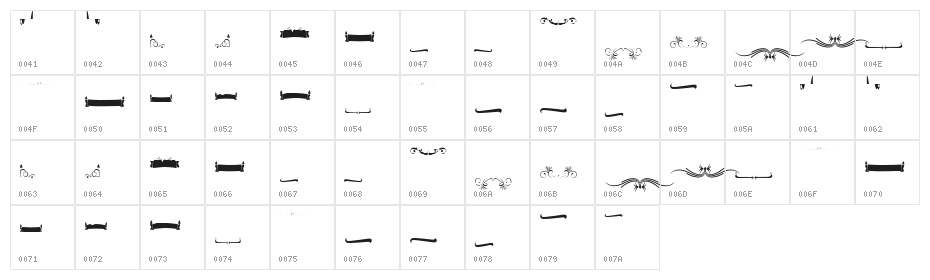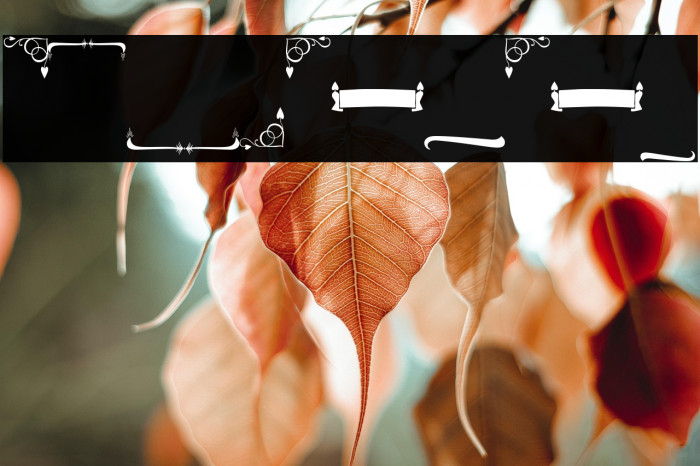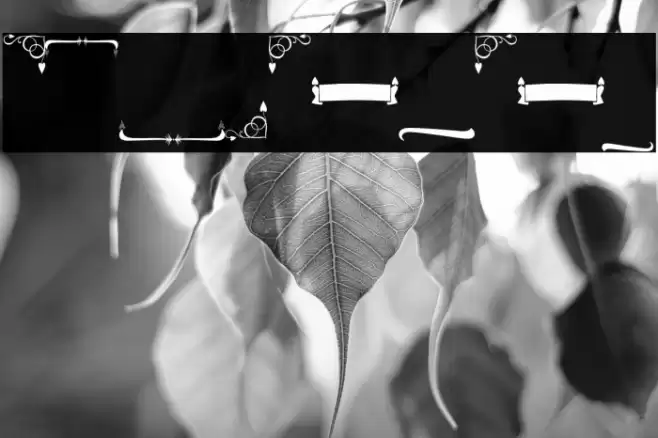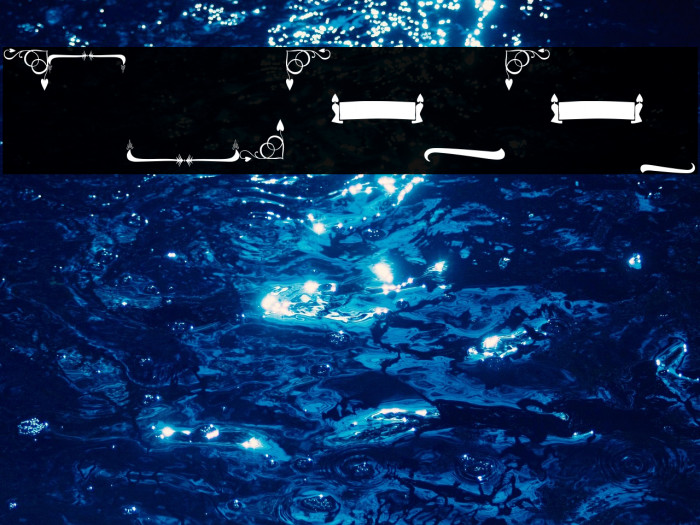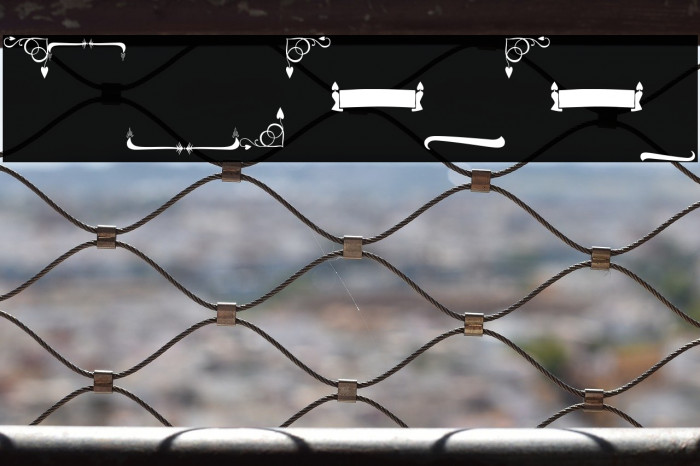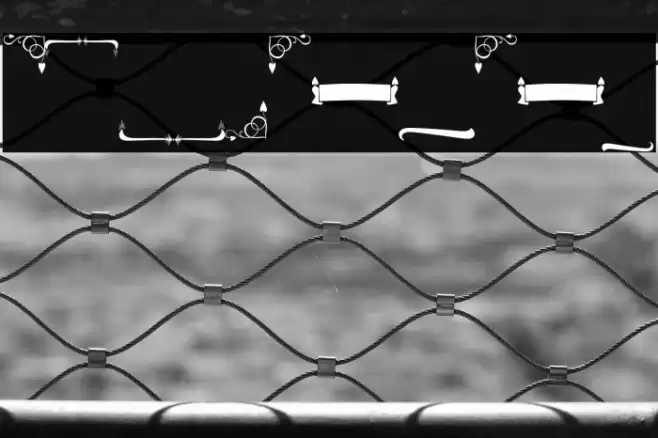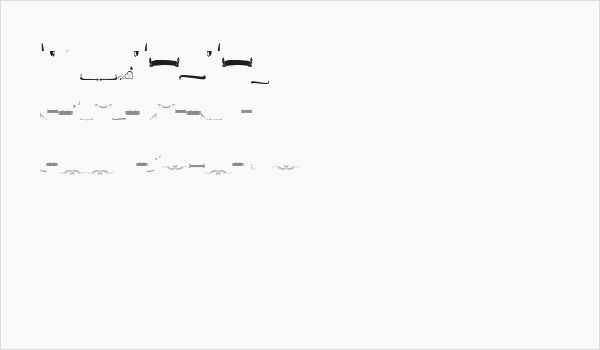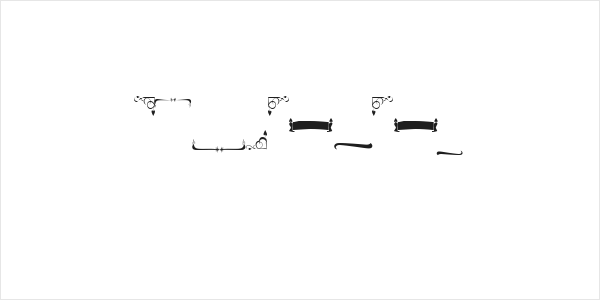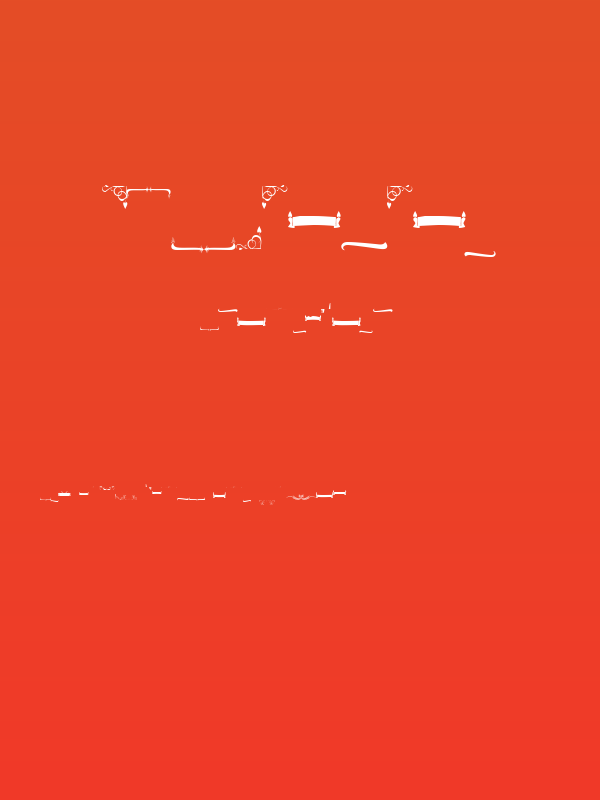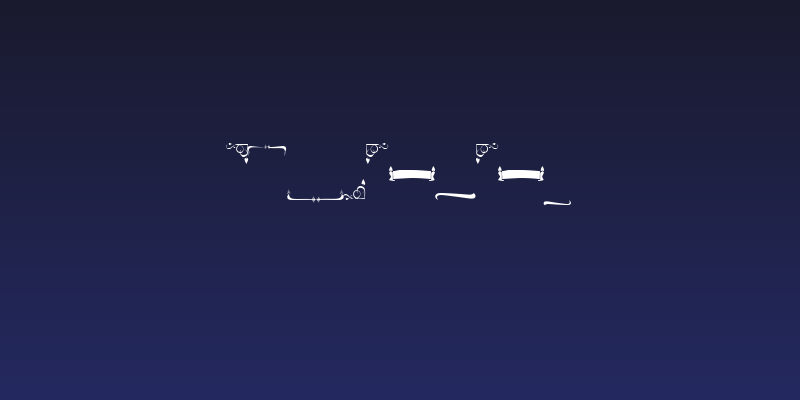
BundaSwash Font
BundaSwash Description
A decorative collection of ornate swashes, flourishes, and embellishments with intricate details and varying line thickness, suitable for accenting text or creating ornamental borders.
| Overall Style | Decorative, Vintage |
| Use Case | Accents, Borders, Invitations, Certificates |
| Proposed Projects | Wedding invitations, certificates, greeting cards, vintage posters, decorative borders. |